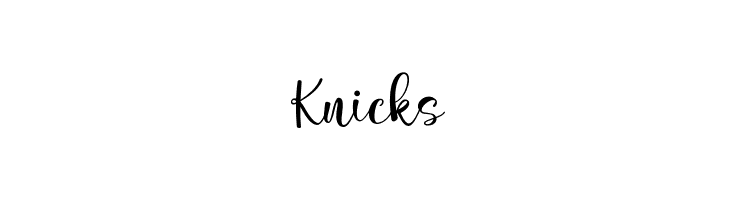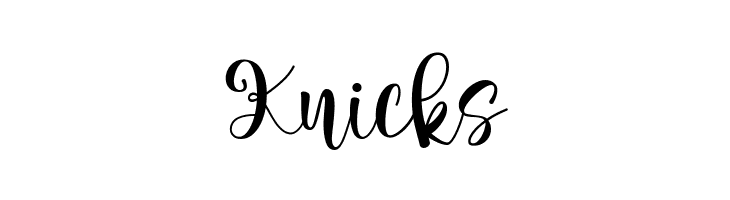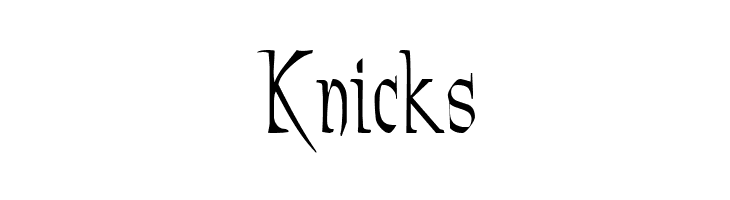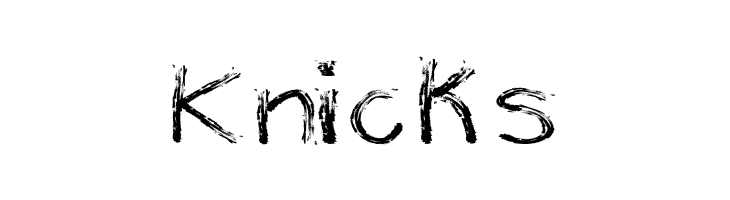
A bold, vintage-inspired font with tightly spaced, heavy strokes.
A bold, hand-drawn font with a playful and informal style.
A playful handwritten font with tall, narrow letterforms and a lively appearance.
A flowing, cursive script with elegant loops and swashes.
A bold, pixelated font with a retro, video game-inspired style.
A rough, hand-drawn font with a marker-like texture.
A modern, elegant script font with flowing, cursive letters and artistic flourishes.
An artistic font with gothic influences and dramatic serifs.